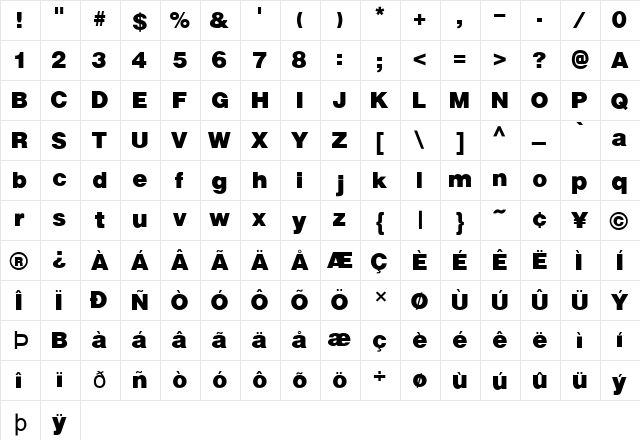
FZ BASIC 13 Normal
Design Context for FZ BASIC 13 Typeface
FZ BASIC 13 is a composed and adaptable typeface that performs quietly and consistently across a wide range of design contexts.